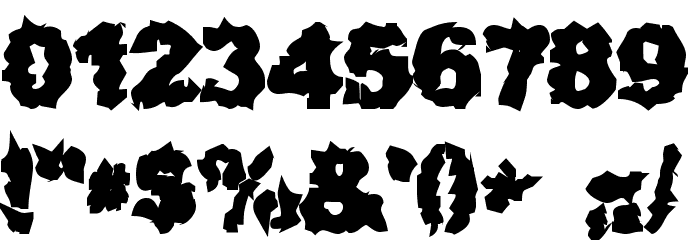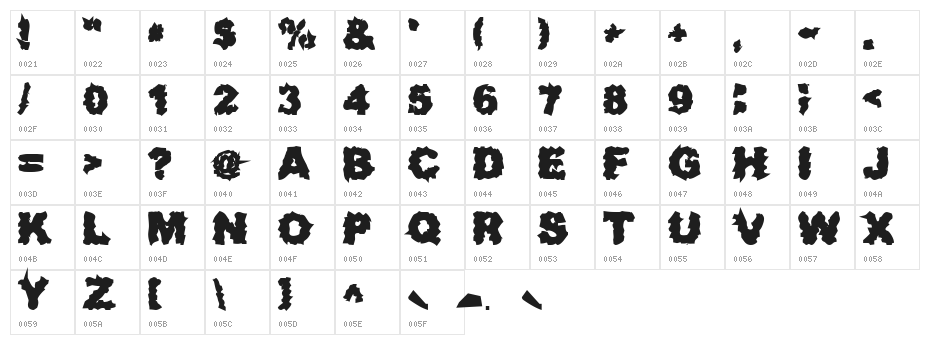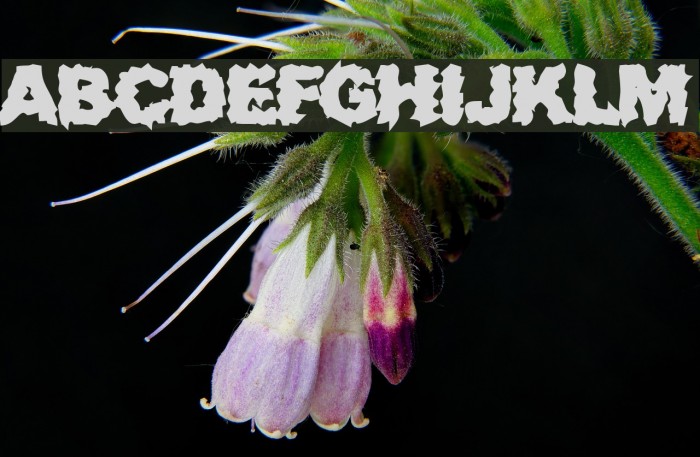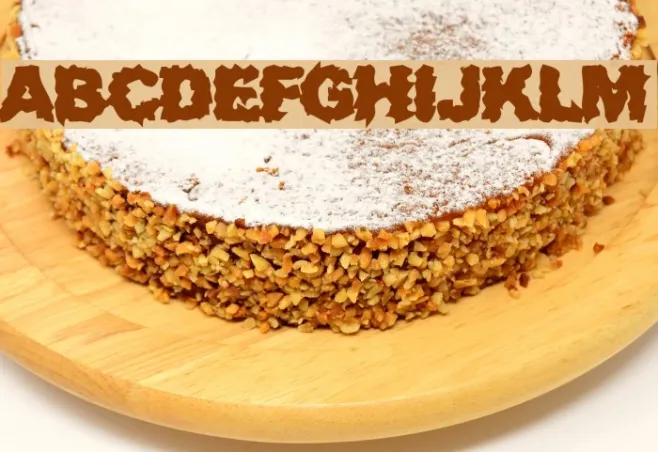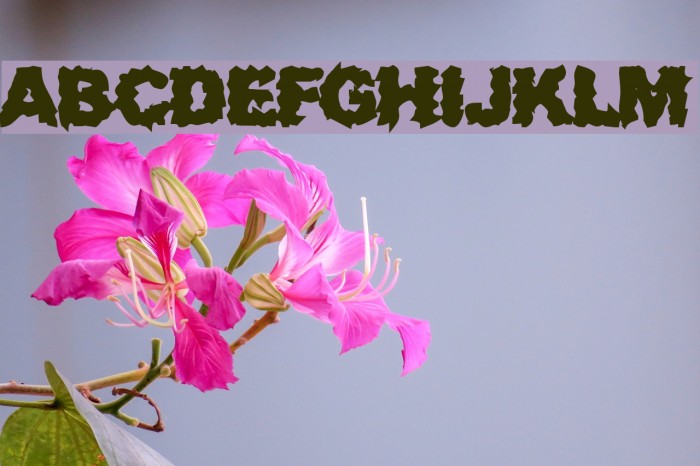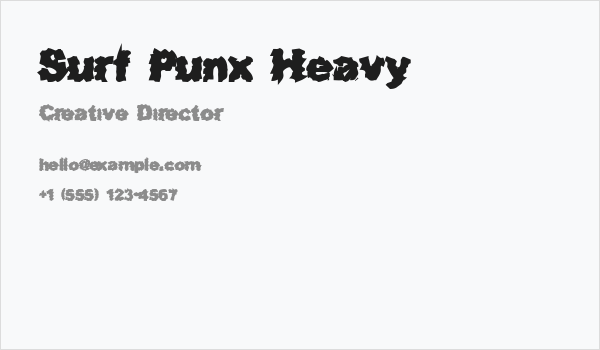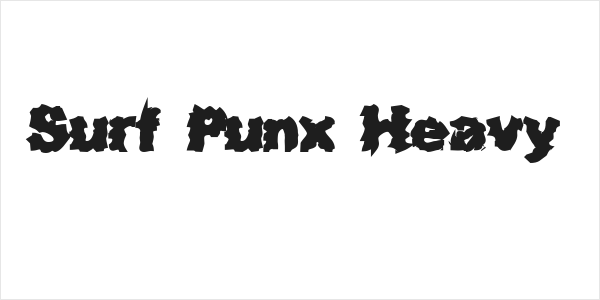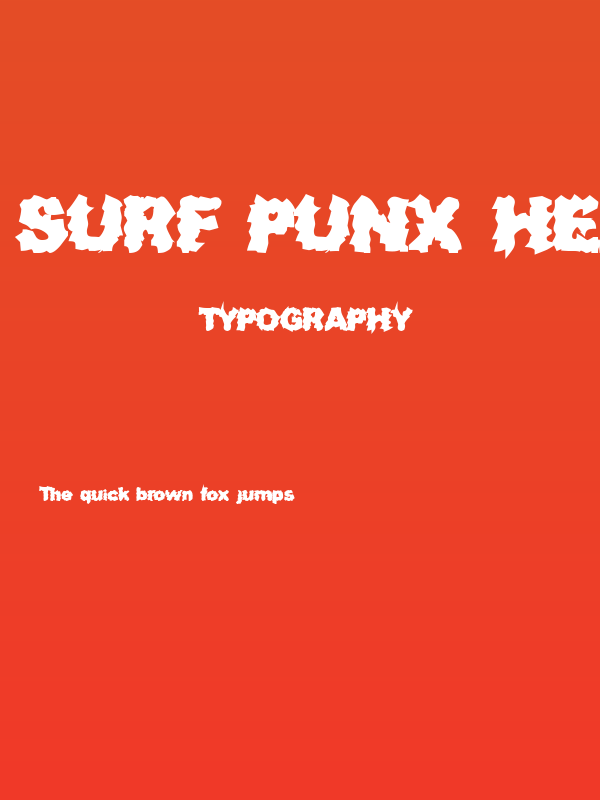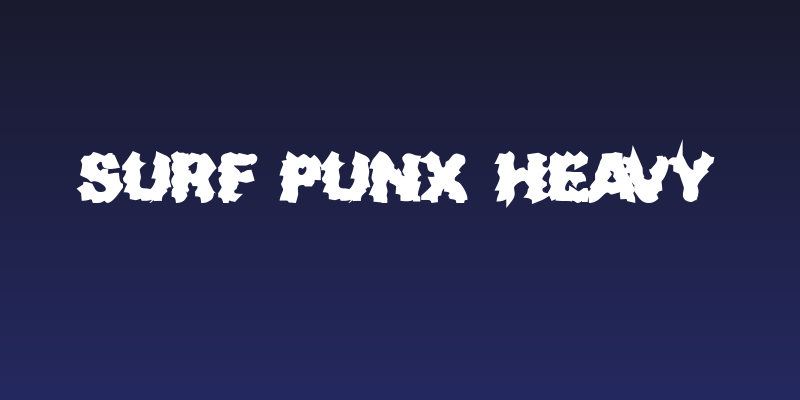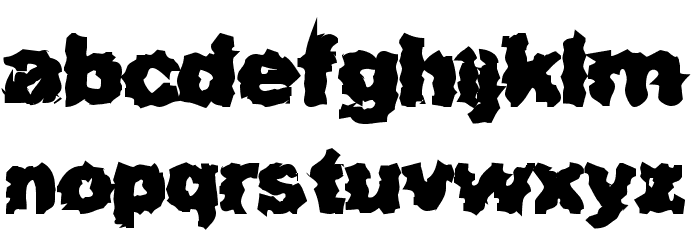
Surf Punx Heavy Font
Surf Punx Heavy Description
This font features a bold and edgy design with a distinctly jagged and irregular outline, reminiscent of torn paper or rough waves. The characters are heavily stylized, with sharp angles and a dynamic, chaotic appearance that conveys a sense of movement and energy. The uppercase and lowercase letters maintain a consistent thickness, creating a uniform look despite the irregular shapes. Numbers and special characters follow the same design principles, ensuring a cohesive overall style. This font is perfect for projects that require a rebellious or unconventional aesthetic, making it ideal for music posters, skateboarding brands, or any creative endeavor that seeks to break the mold.
| Overall Style | Edgy, Rebellious, Dynamic |
| Proposed Projects | Music posters, skateboarding brands, edgy apparel designs, alternative event flyers. |